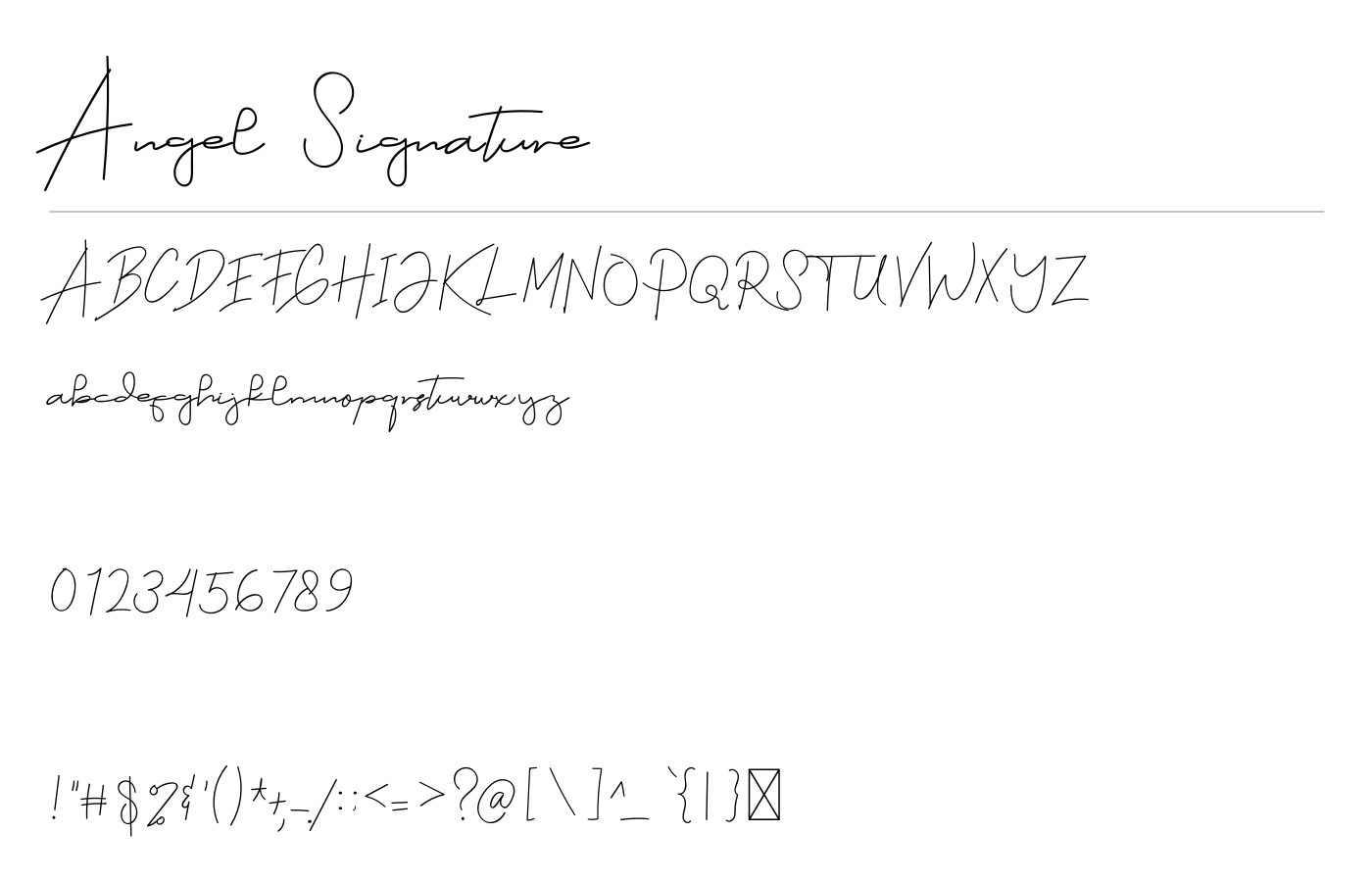
Angel Signature Font is a delicate, handwritten script with a slender, airy style that mimics elegant personal signatures. Its tall, narrow letterforms and fine, consistent stroke weight give it a sophisticated yet approachable feel, making it ideal for branding, invitations, and designs that require a touch of personal, modern elegance. This font works beautifully for projects aiming to convey creativity, refinement, and a stylish, intimate vibe.
Angel Signature Font
About Angel Signature Font